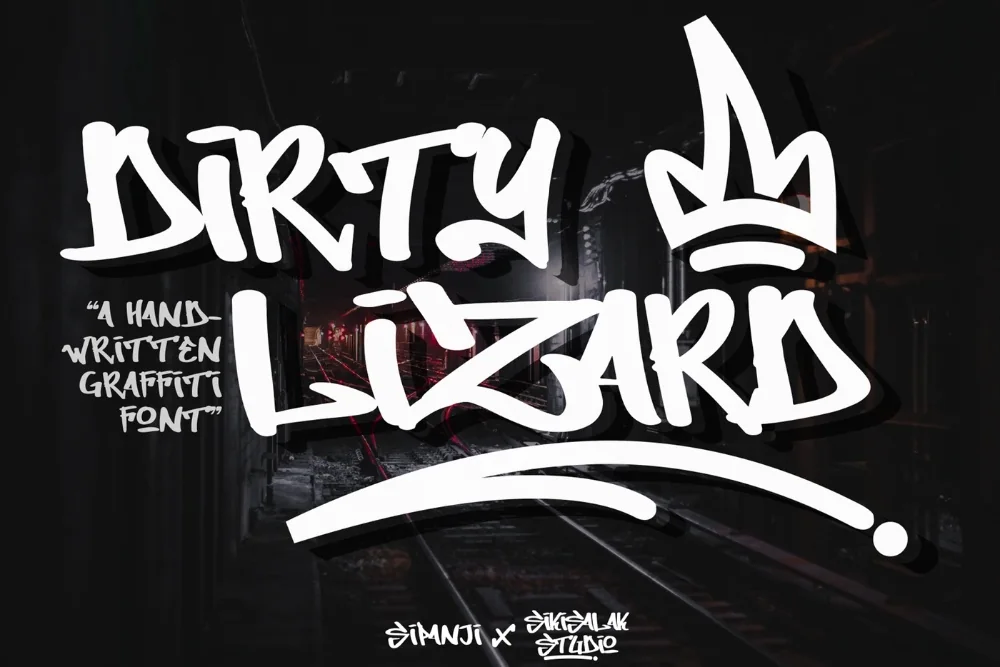
Gritty Scrawl Street Font
A grunge graffiti font lives or dies on how it behaves at real sizes, and this one has been tested at both extremes. Scratchy, aggressive letterforms with plenty of surface noise. Rough enough to feel dangerous.
The outlines are broken and irregular and fine scratches cut across the strokes, as if scraped rather than painted. It sits comfortably over photographic backgrounds.
Suits punk and metal artwork, distressed prints, skate graphics, and grunge-styled layouts.
It reverses well out of dark backgrounds, which is worth remembering if the artwork is heading for a black shirt or a night-time photograph.